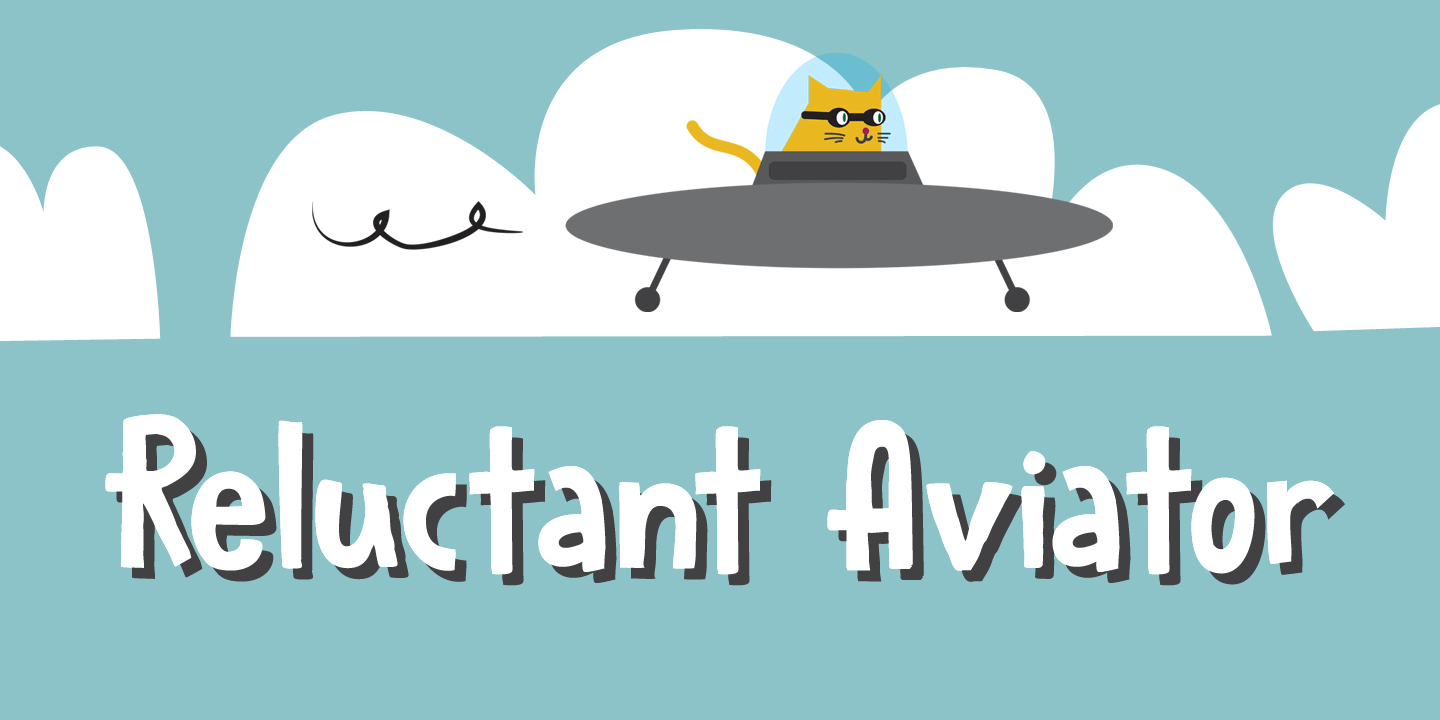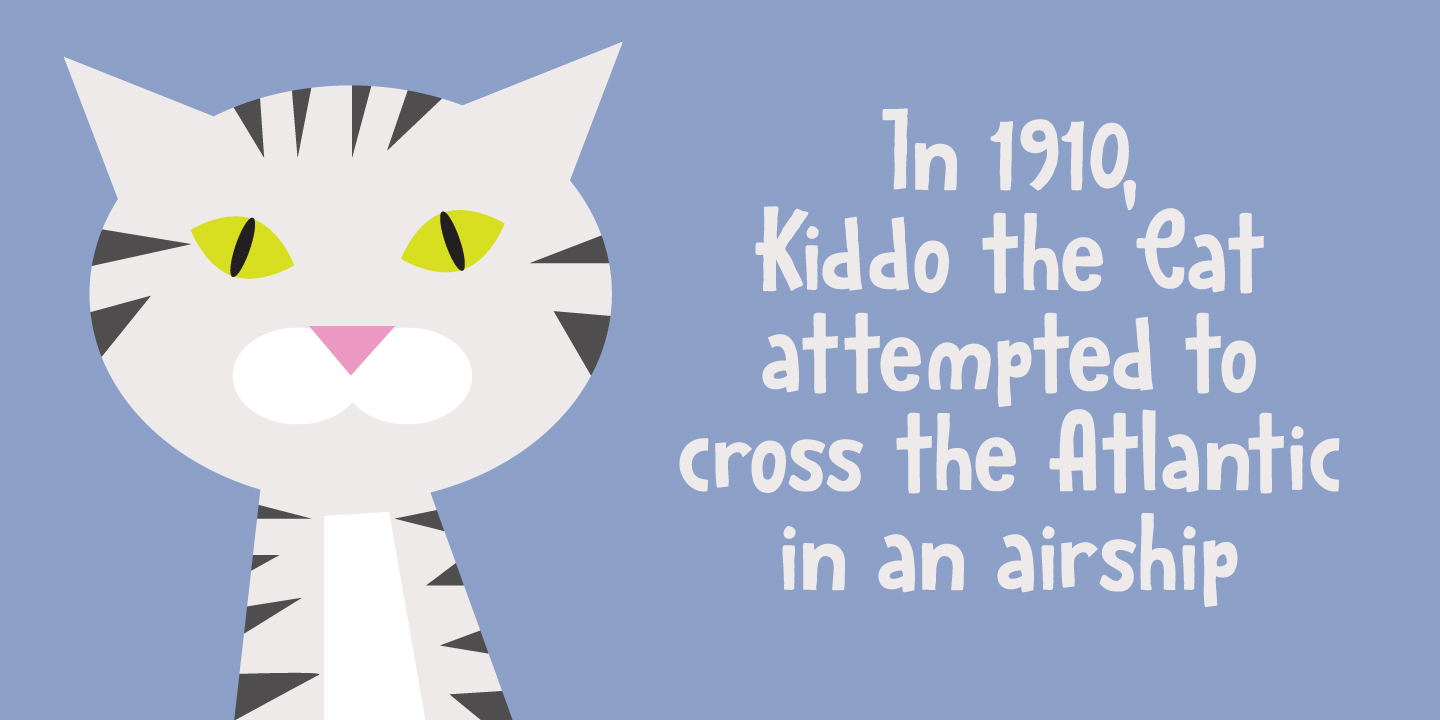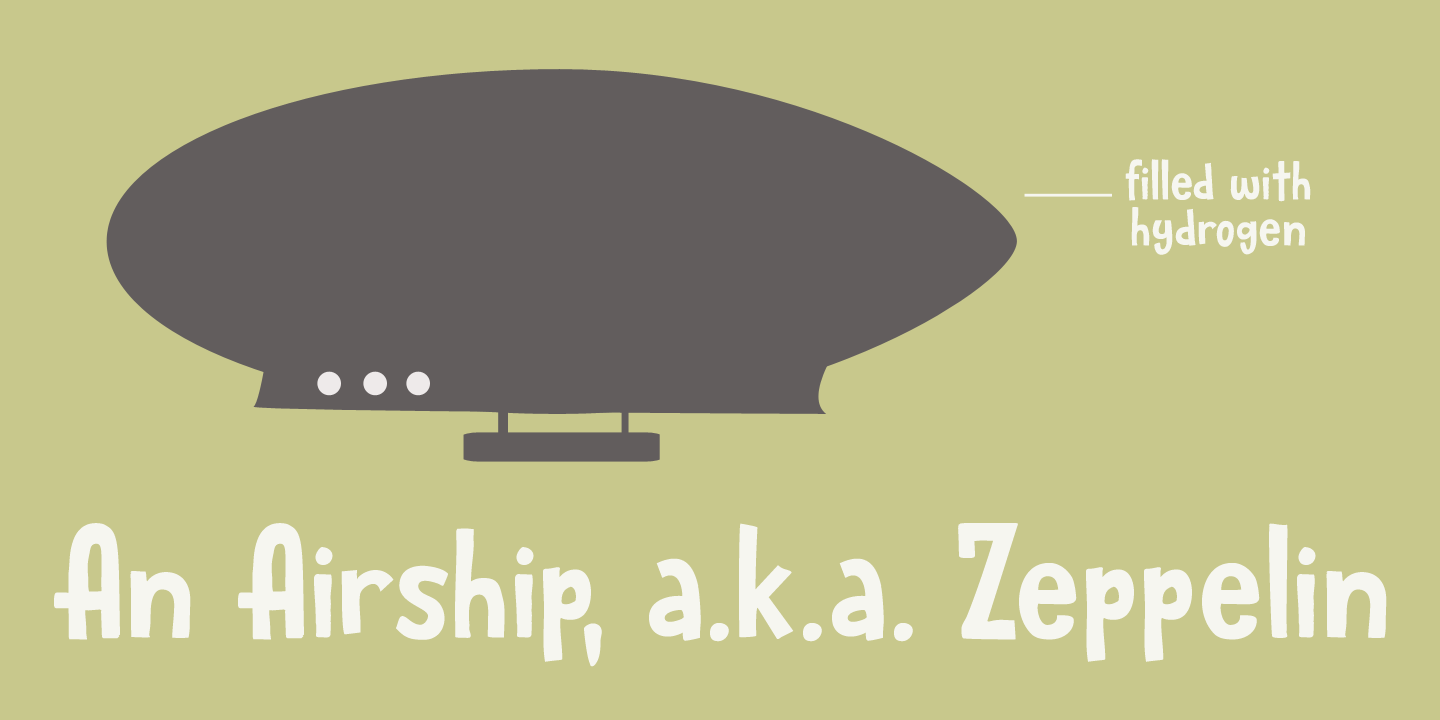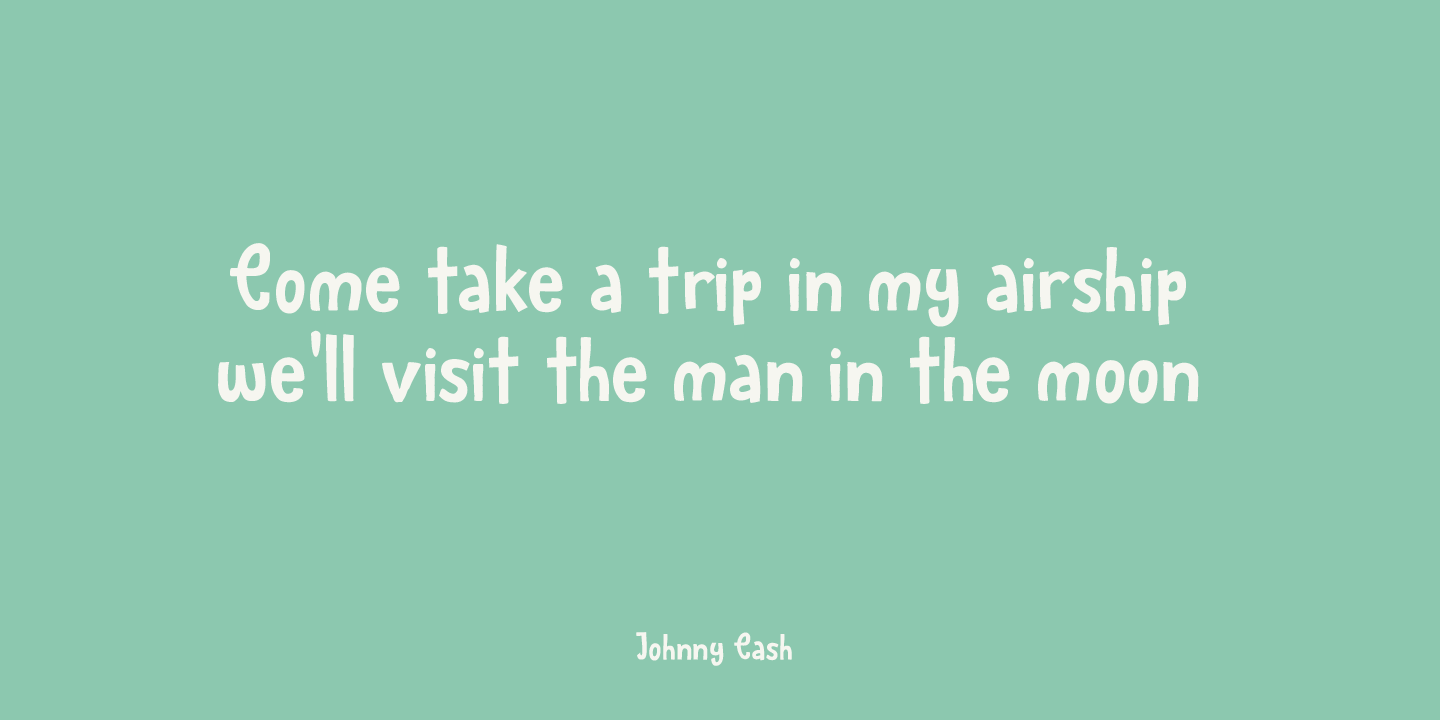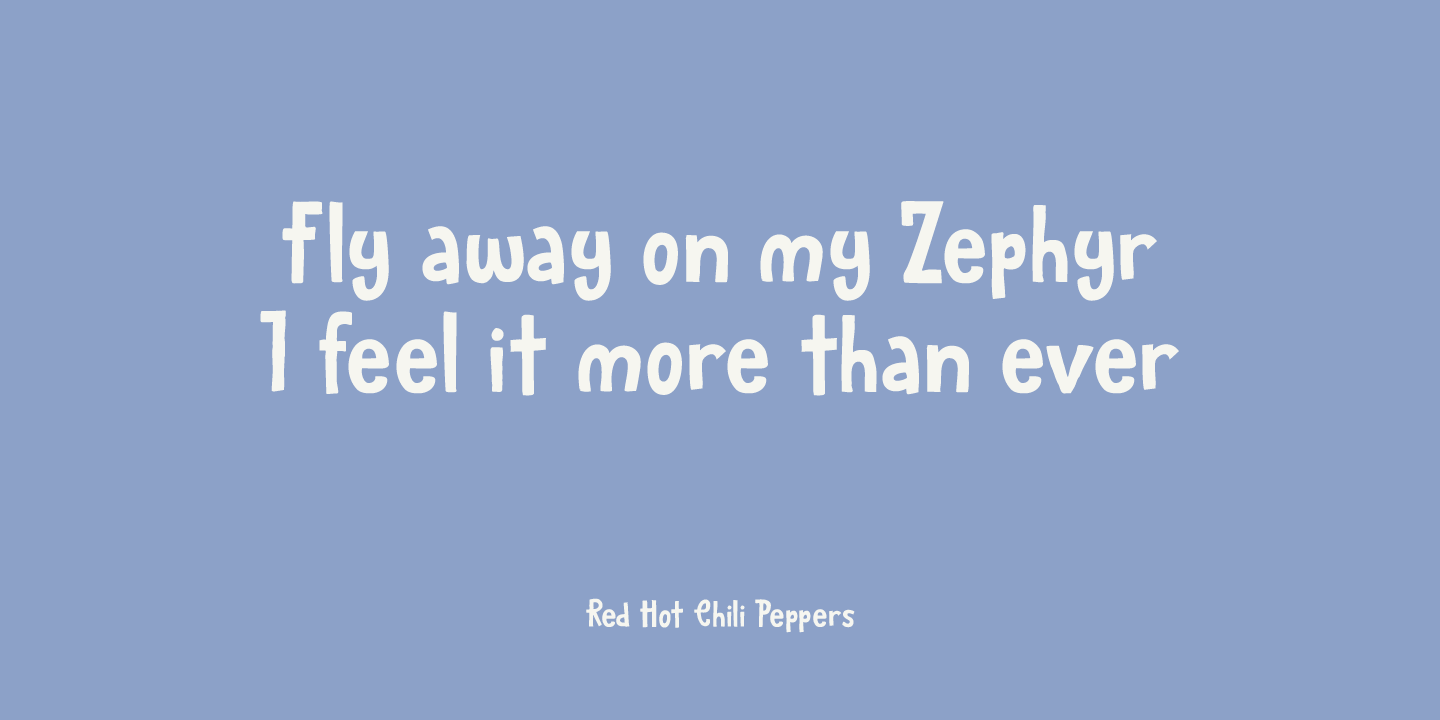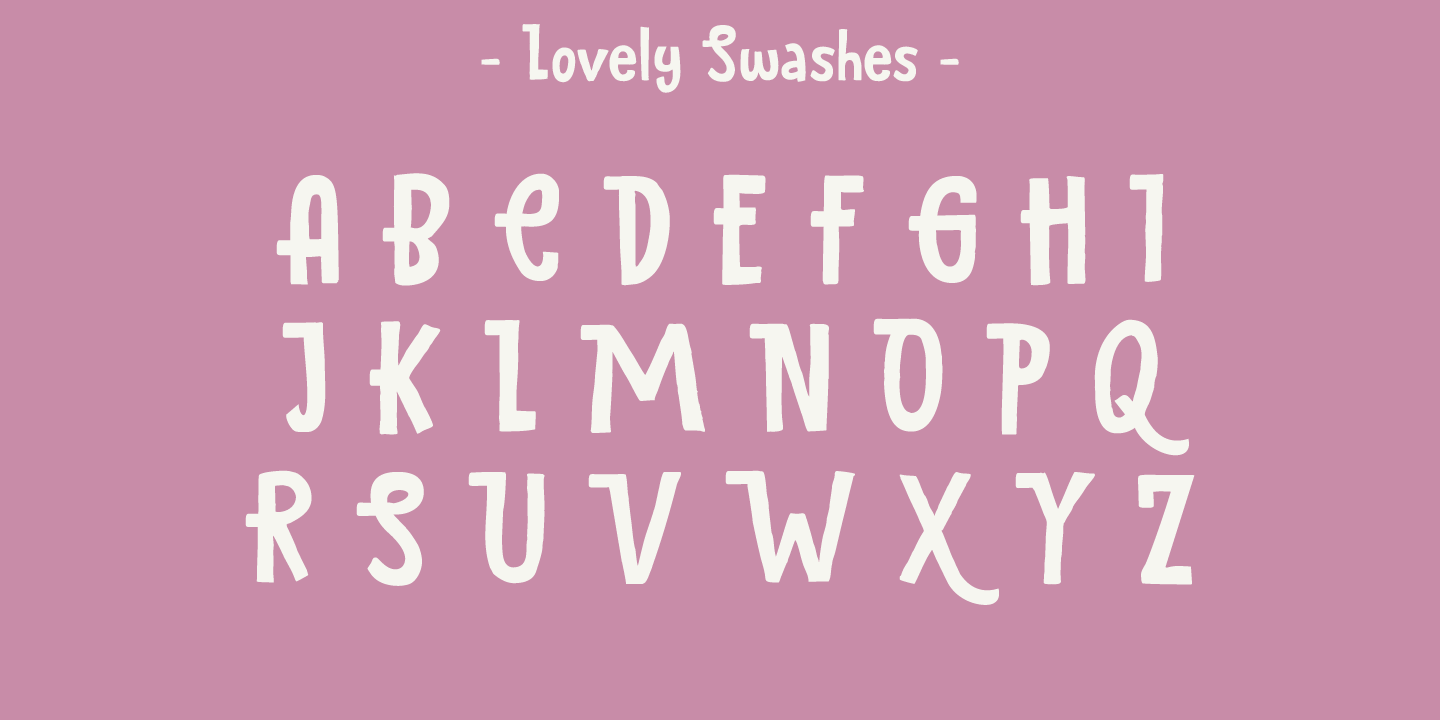
Reluctant Aviator
Font Family by Hanoded
I read something interesting the other day: in 1910 a cat called Kiddo snuck on board an airship and was found by aeronaut Walter Wellman - after he had already taken off in an attempt to cross the Atlantic Ocean. Wellman and Kiddo spent 71 hours aboard the airship, but never completed the journey, due to engine problems and foul weather. Luckily, they were both rescued.
It was a funny story, so I decided to name a font after it.
Reluctant Aviator is a handmade font (pen and paper). It has a rough edge, some shaky glyphs and a lot of bravado. Comes with diacritics and swashes.